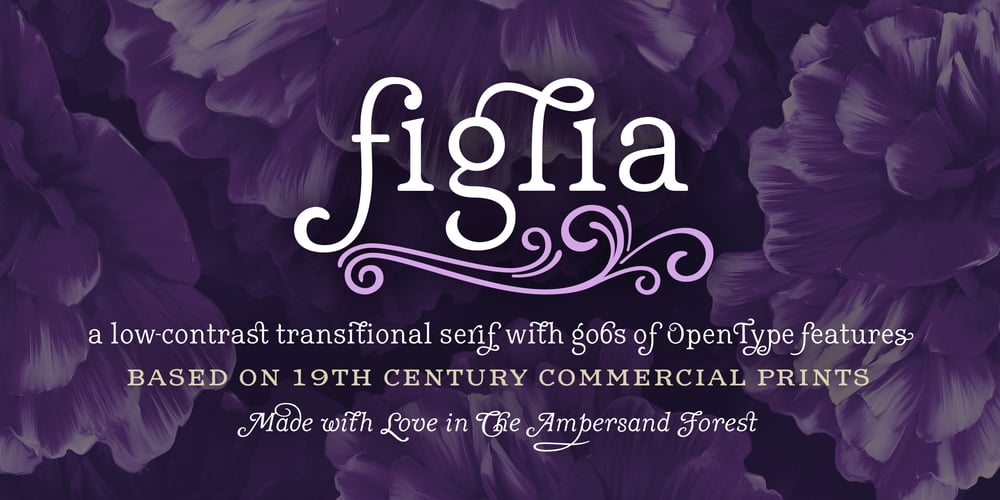
Figlia Font Family was designed by DC Scarpelli and published by The Ampersand Forest. Figlia contains 2 styles and family package options. Figlia was inspired by beautiful Italian and French display cards of the 19th century. These wide-set types were surprisingly easy-going examples of Transitional type, usually so rigid. Figlia is meant to have a soft, feminine feel, with a full set of small caps, ornaments, flourished stylistic sets, and ligatures to make your invitations, menus, and branding elegant and versatile. Figlia is part of The Sondheim Series at The Ampersand Forest, inspired by Passion.